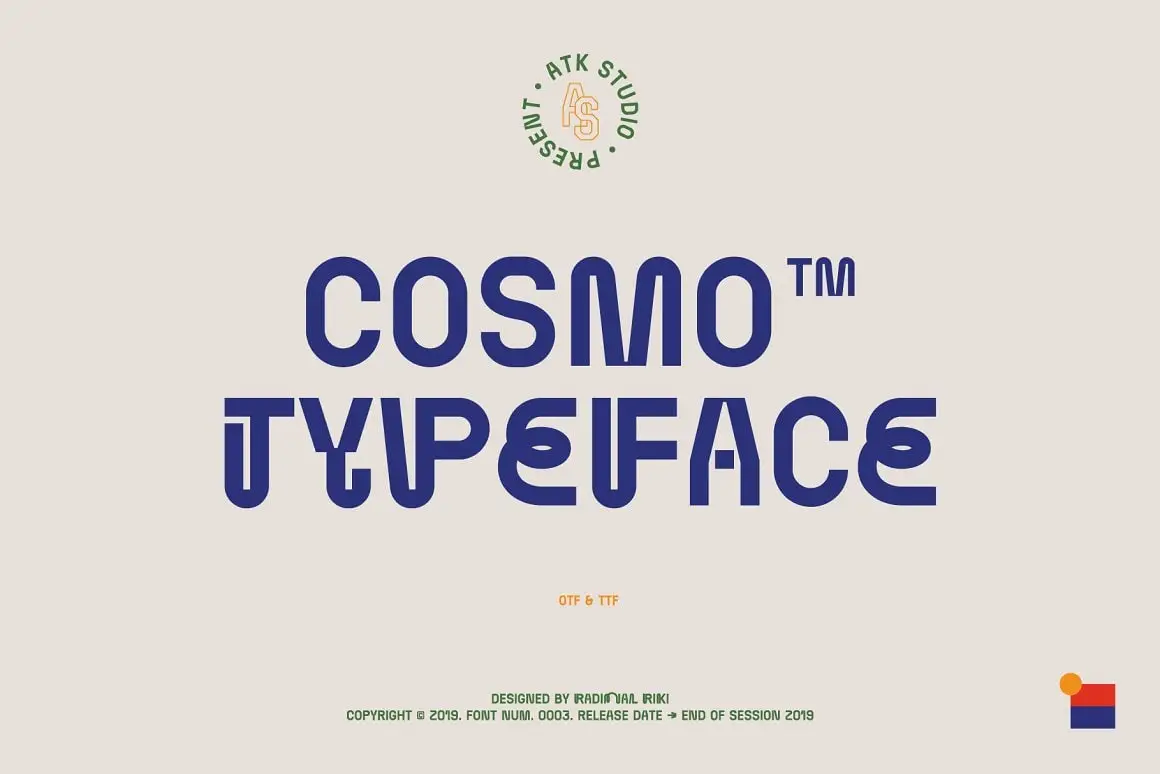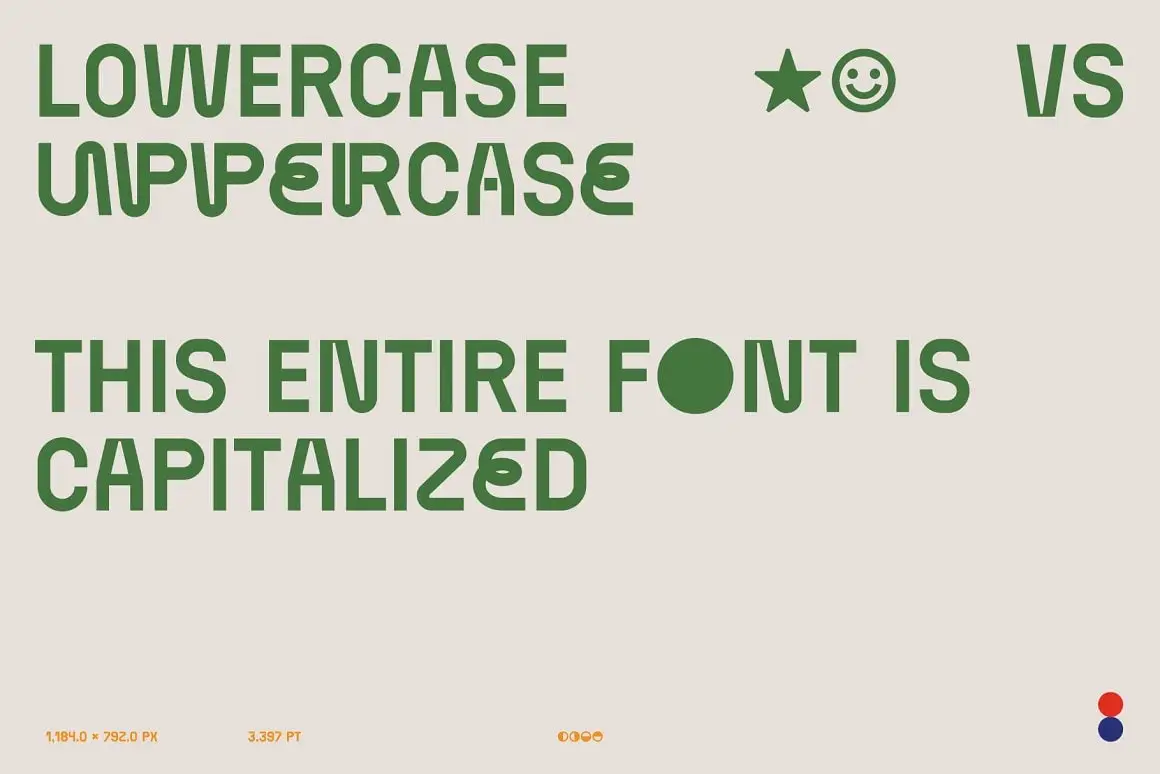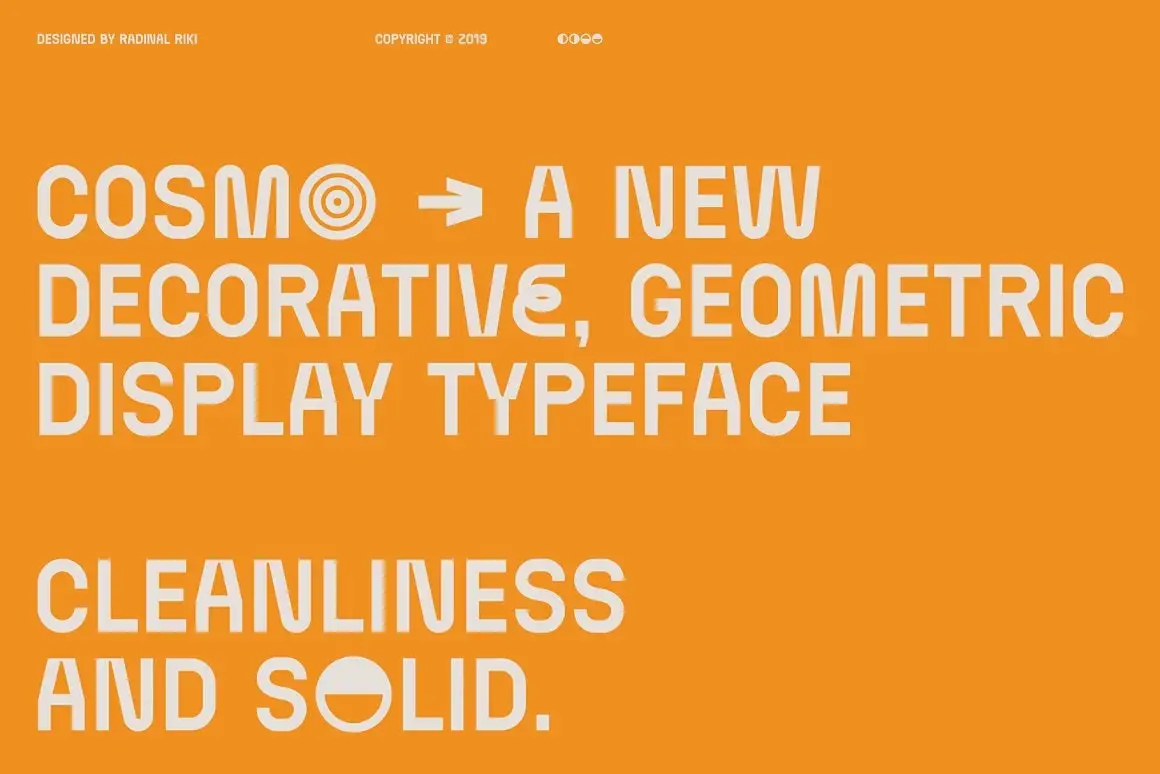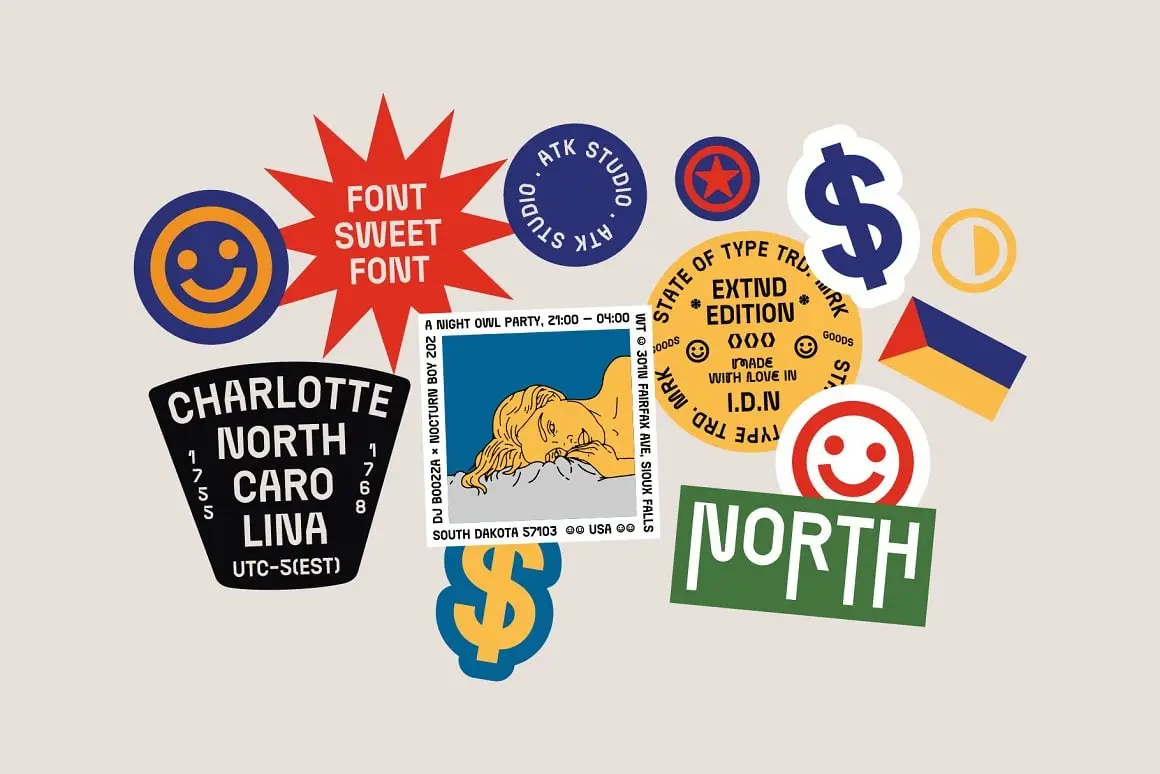
Cosmo Font
The Cosmo Font is a modern typeface that combines elegance with versatility, making it an excellent choice for various design projects. With its clean lines and unique character shapes, this font is perfect for branding, logos, web design, print materials, and user interfaces.
• Multiple weights for diverse applications
• Uppercase and lowercase letters, numbers, and symbols
• Weight options: Regular, Bold, Italic
• Ideal for creating eye-catching headlines and logos
• Perfect for both digital and print applications
• Use in combination with other fonts for a dynamic layout